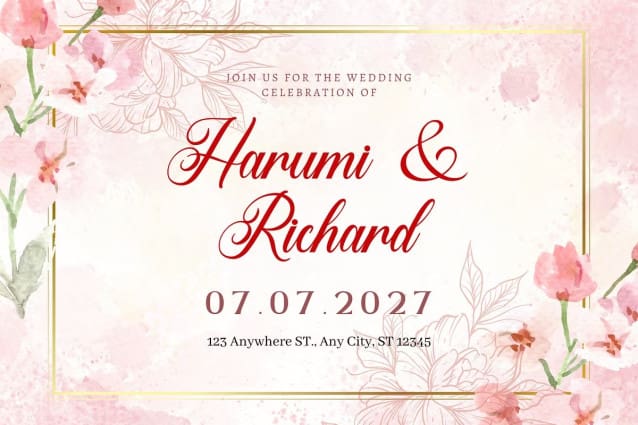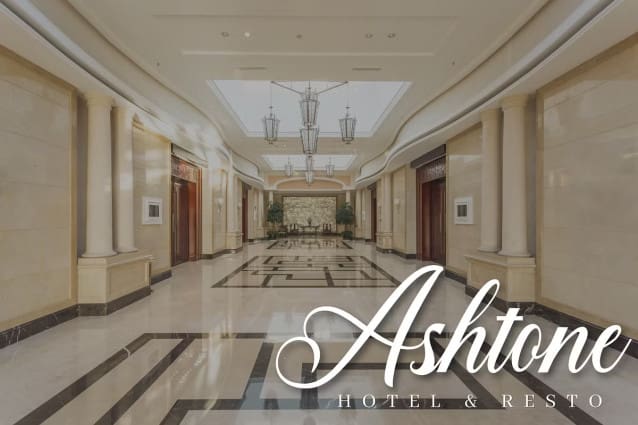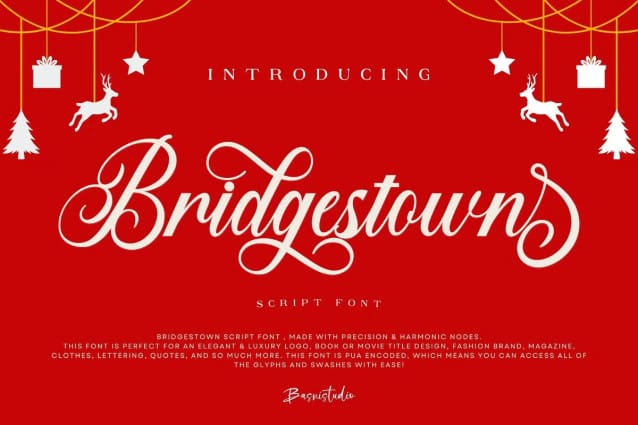
Bridgestown Font
Bridgestown Font, made with precision & Harmonic Nodes. This Font is perfect for an elegant & luxury logo, book or movie title design, fashion brand, magazine, clothes, lettering, quotes, and so much more. This font is PUA encoded, which means you can access all of the glyphs and swashes with ease!